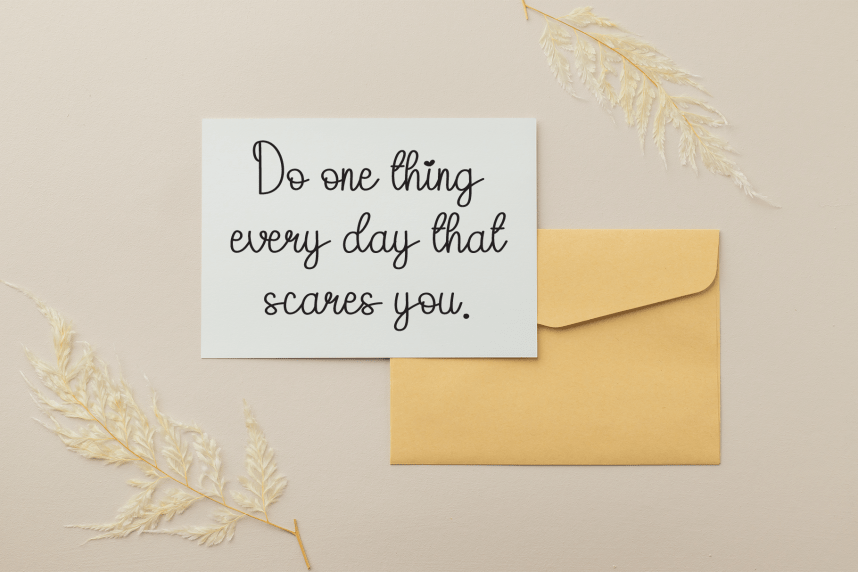
Kitchen Simple Handmade Font
Kitchen Simple Handmade Font is a sweet and friendly handwritten display font. Cute and fun, this font is ideal for writing wedding invitations, cards, or any other design that might need a playful touch!